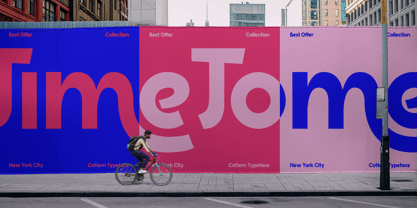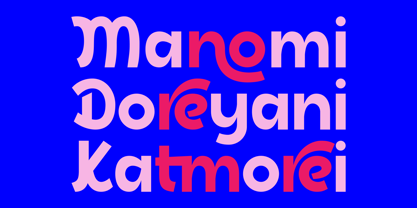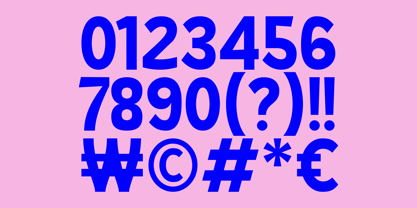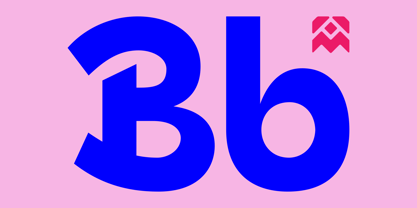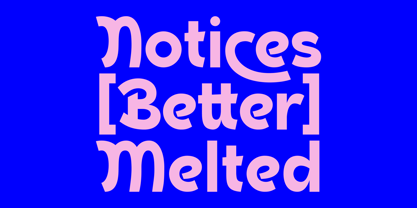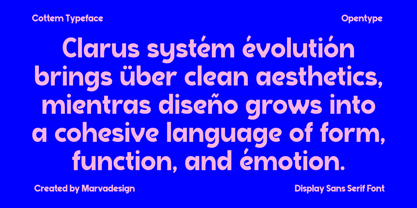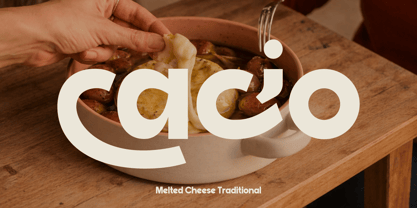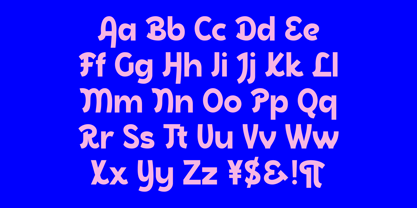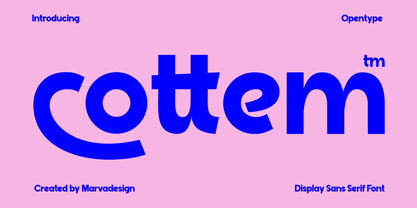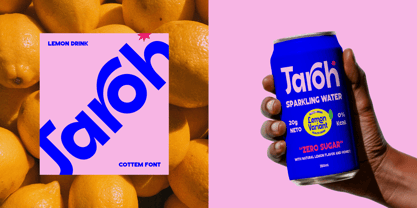
Cottem Display
by Marvadesign
The Cottem Display Font Family was designed by Febrie Setiawan and published by Marvadesign. Cottem Display contains 1 styles. More about this family
Cottem is a bold sans serif display typeface, characterized by consistent stroke thickness and rounded geometric construction. Its overall structure is robust and highly legible, featuring wide proportions and gentle curves that create a strong yet friendly visual presence. The prominent character traits make this font easy to recognize. The typeface showcases soft edges and exaggerated curves, giving it a warm and approachable feel despite its heavy weight. This balance between boldness and softness makes it visually appealing without feeling aggressive. Cottem supports multilingual characters and OpenType features, allowing for design flexibility and broader usability across multiple languages. This typeface is primarily designed for display use, making it ideal for headlines, branding, packaging, and editorial layouts where strong visual impact is crucial.
Designers: Febrie Setiawan
Foundry: Marvadesign